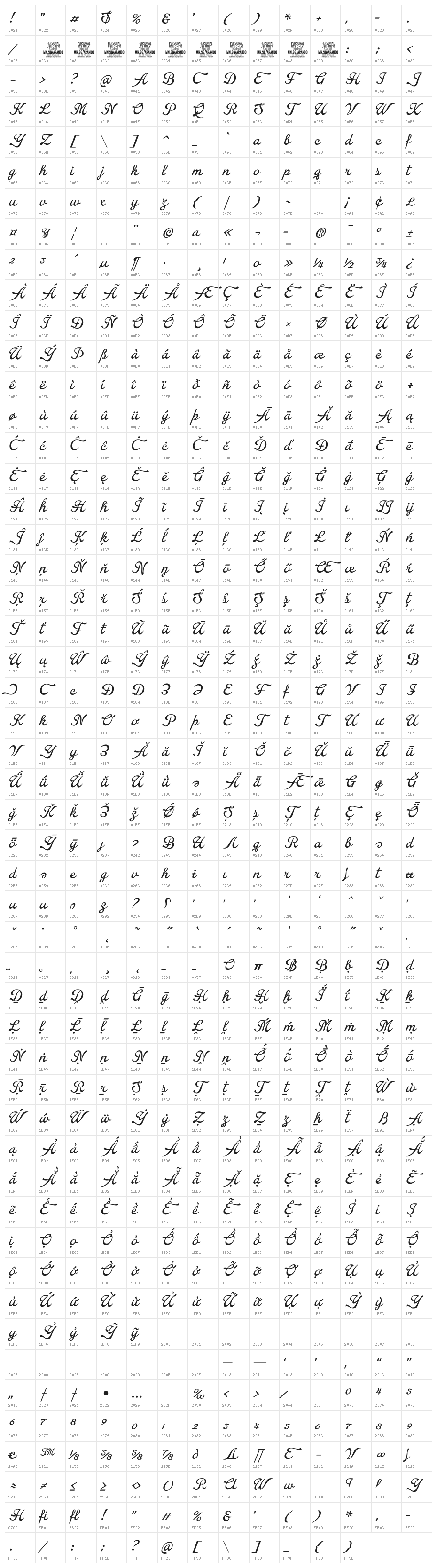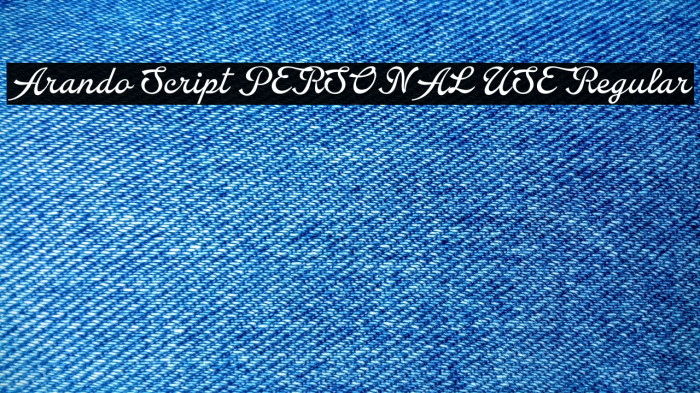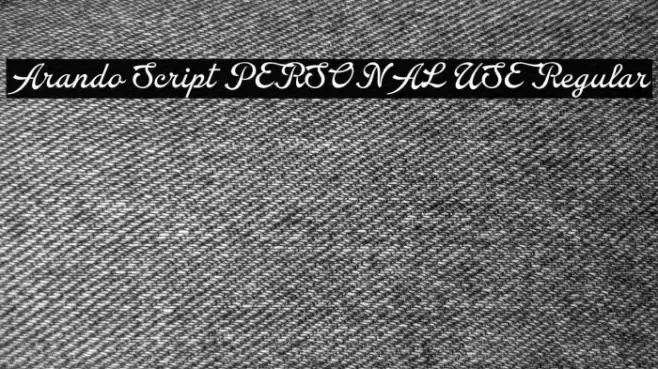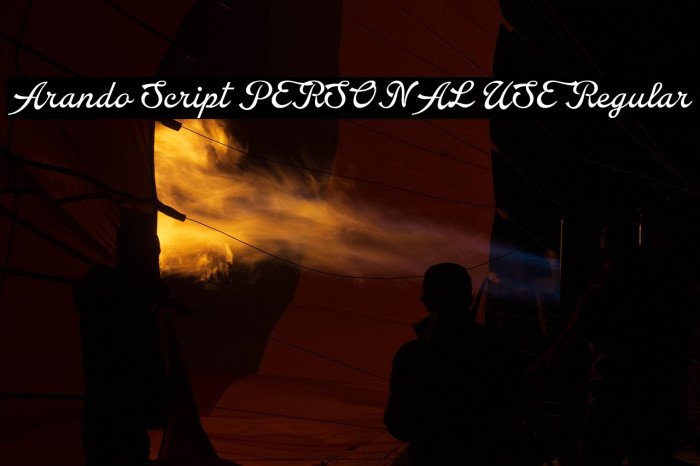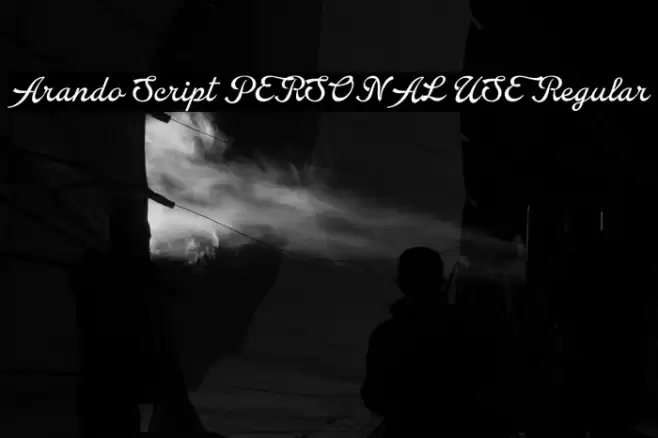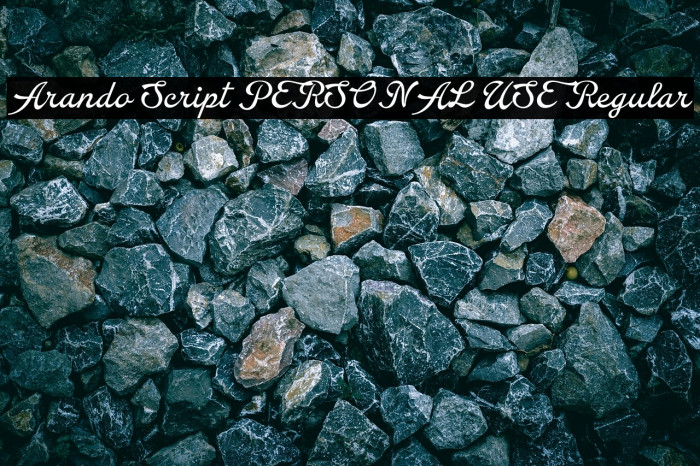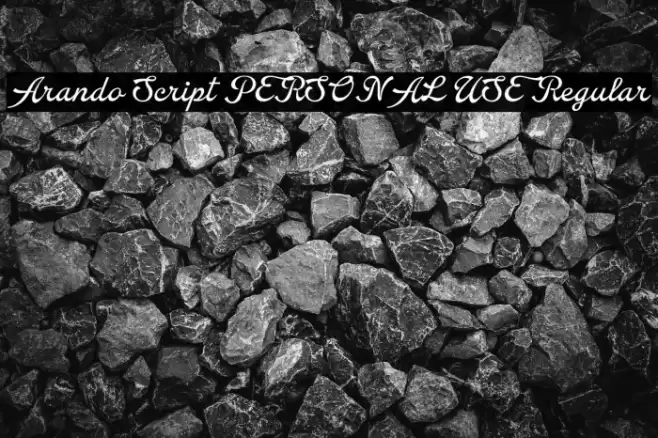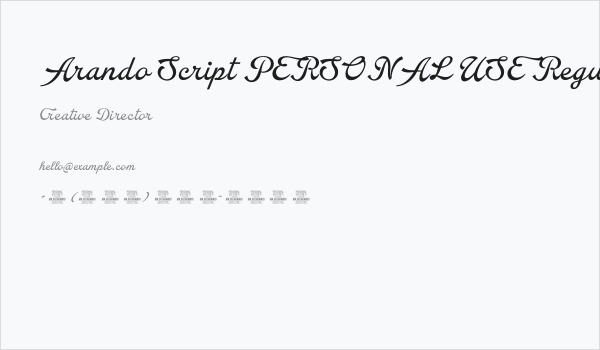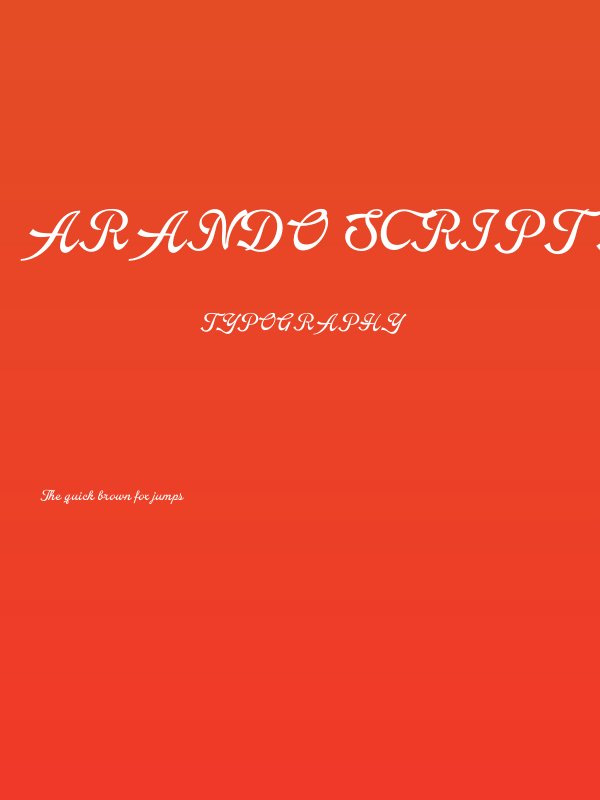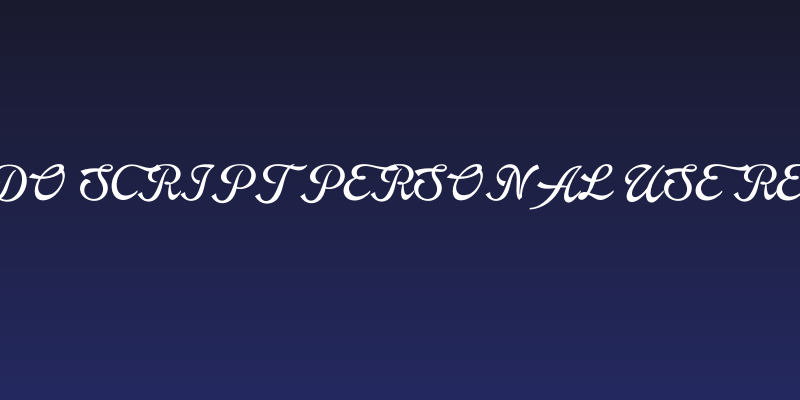
Arando Script PERSONAL USE Regular Font
Arando Script PERSONAL USE Regular Description
This font features an elegant, flowing script style that mimics the fluidity of handwriting. The uppercase letters are ornate with sweeping curves, while the lowercase letters maintain a consistent, graceful form. The characters are connected, enhancing the cursive aesthetic. The font includes a full set of numerals and a variety of special characters, each maintaining the same stylish flair. The overall appearance is sophisticated and artistic, making it suitable for projects that require a personal touch.